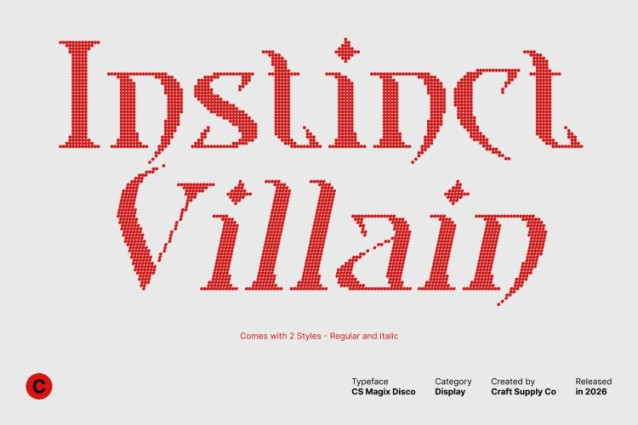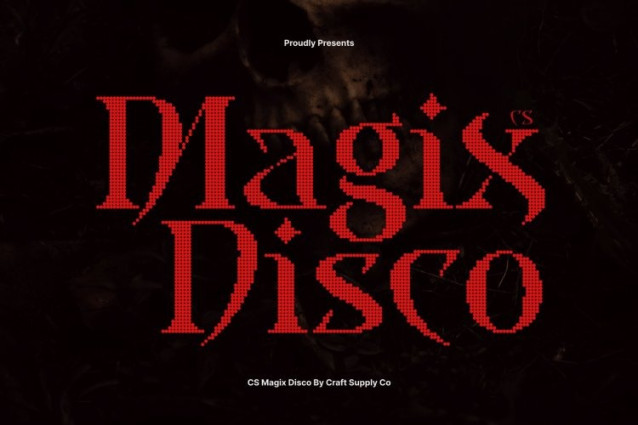
CS Magix Disco Font
CS Magix Disco Font This blends timeless serif elegance with the vibrant energy of the dance floor. Its refined letterforms carry the sophistication of classic typography while pulsing with a modern, disco-inspired twist perfect for designs that need style and sparkle in equal measure.
Elegant Forms with Rhythmic Energy
Each character features clean, graceful serifs and smooth transitions, now accented with playful curves and dynamic flow that evoke movement and celebration. The font feels alive, capturing the energy of flashing lights, music beats, and glamorous nightlife.
Modern Glamour Meets Classic Design
While rooted in classic serif traditions, this font introduces contemporary touches that keep it fresh and versatile. Its stylish balance between elegance and festive vibrancy makes it perfect for designs that want to feel luxurious, bold, and full of personality.
Perfect for Fashion, Events, and Statement Branding
This font shines in editorial layouts, fashion campaigns, party invitations, event branding, and premium packaging. Its display serif design elevates headlines and key visuals with a glamorous, energetic presence bringing classic sophistication straight to the dance floor.